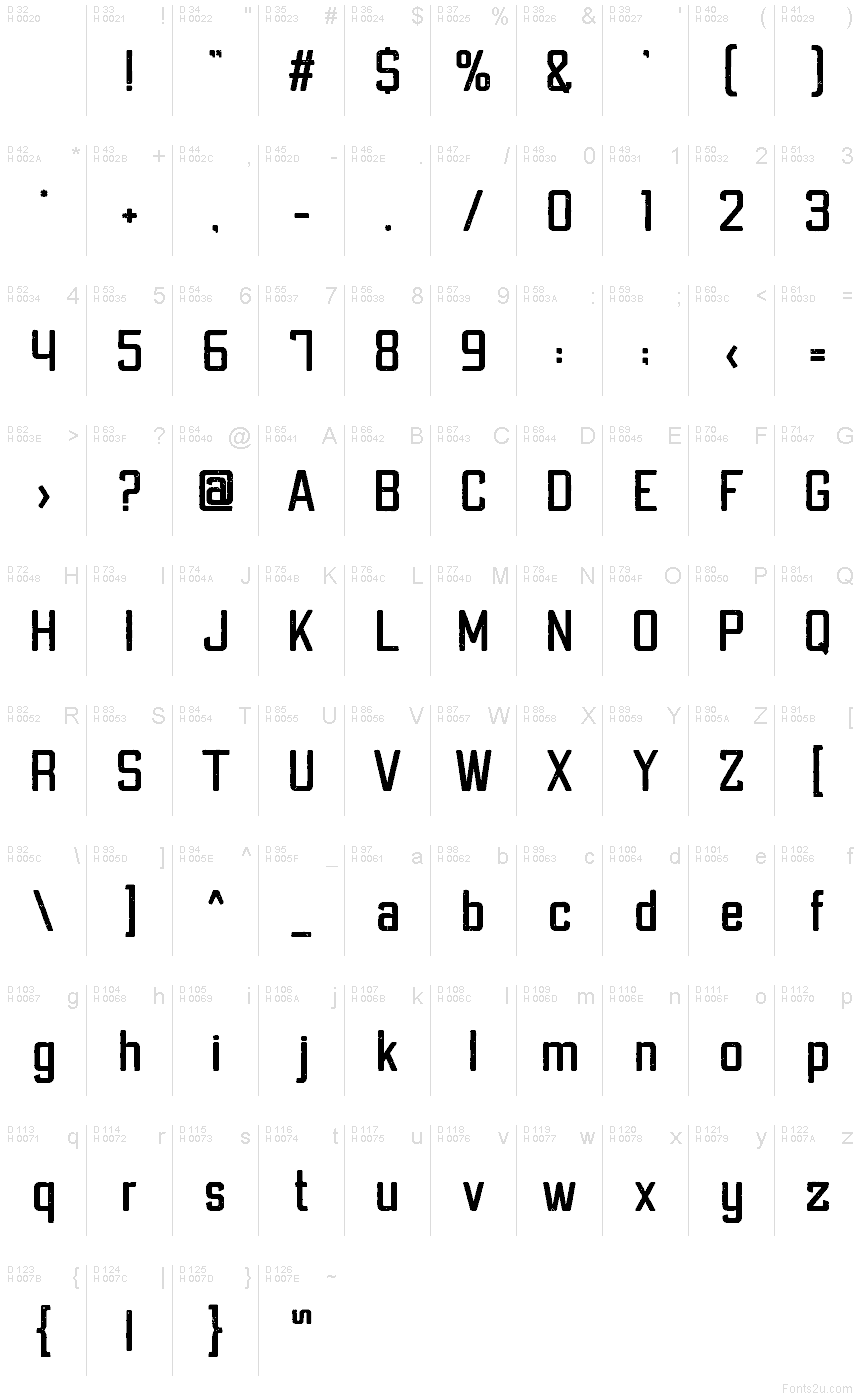
Molard One
Molard One font by PutraCetol Studio is a condensed, monospace-styled typeface with distressed textures, asserting an industrial vibe and rugged character. The urban design elements give it a distinctly vintage feel while making it ideal for creative projects across print and digital mediums. Raw, unpolished edges are visibly prominent for a versatile yet charming visual presentation.